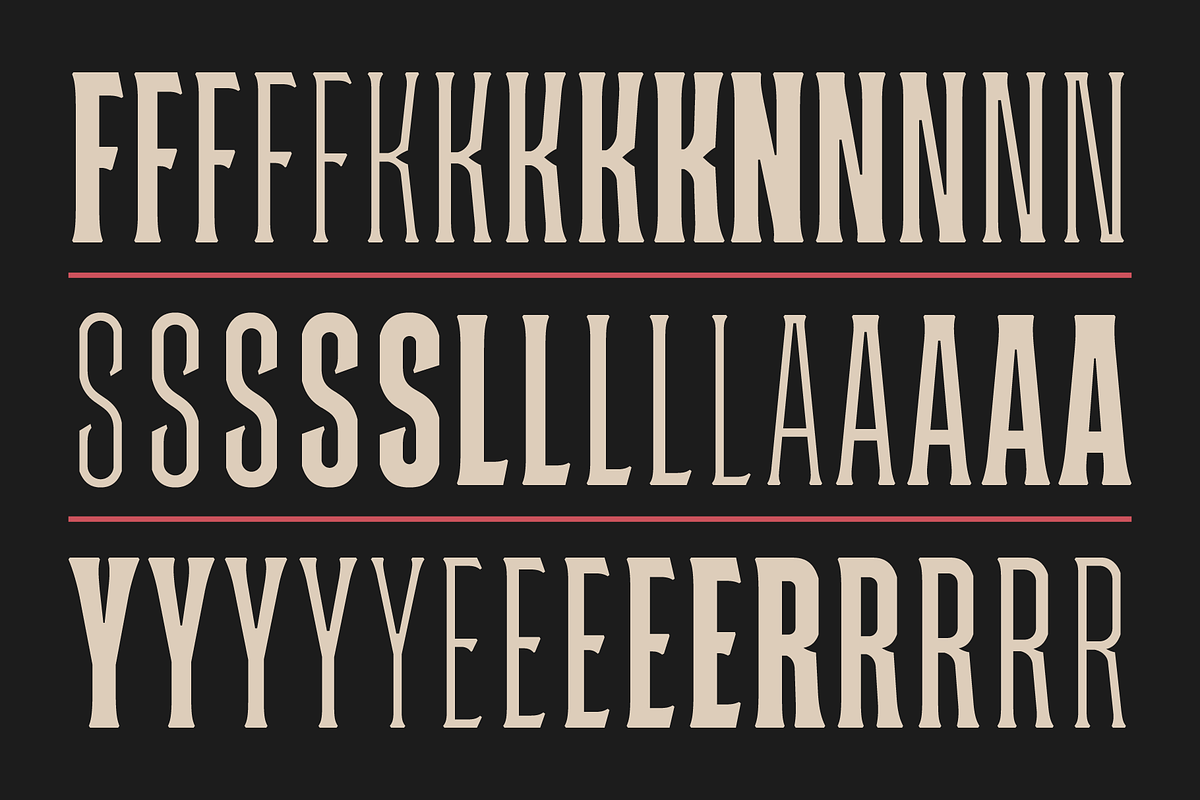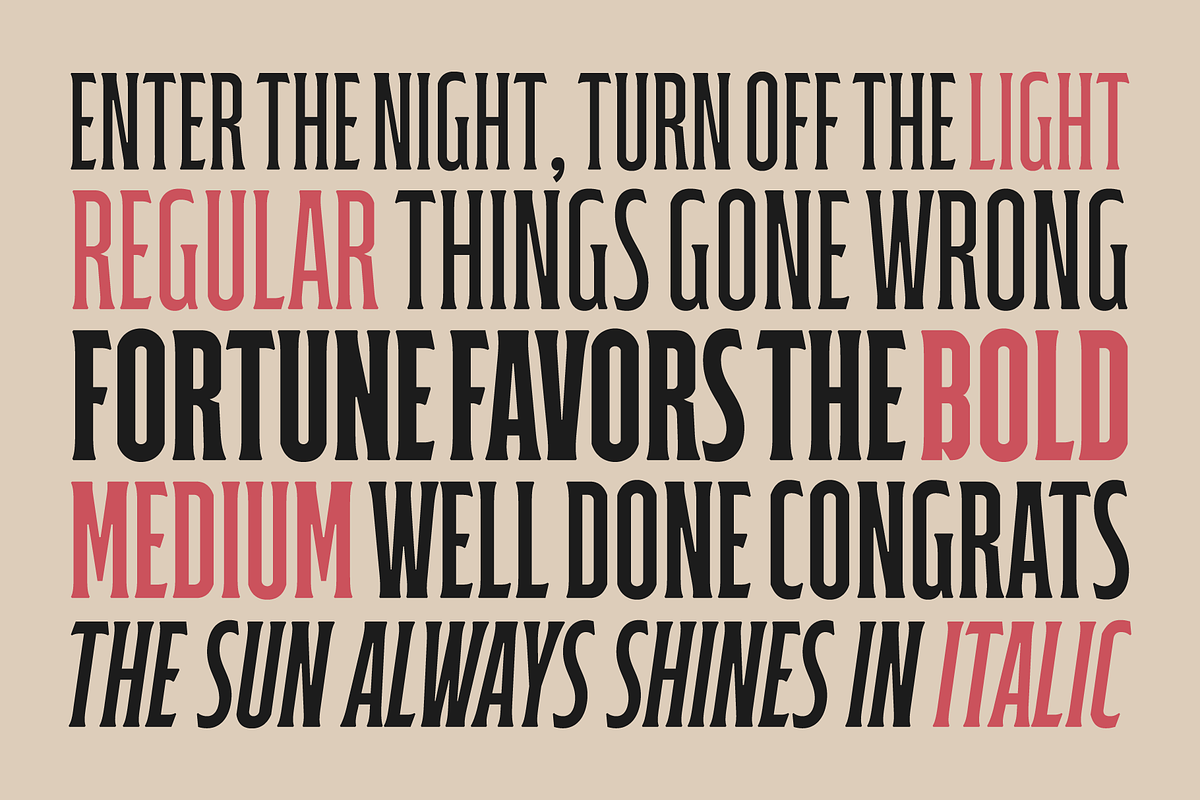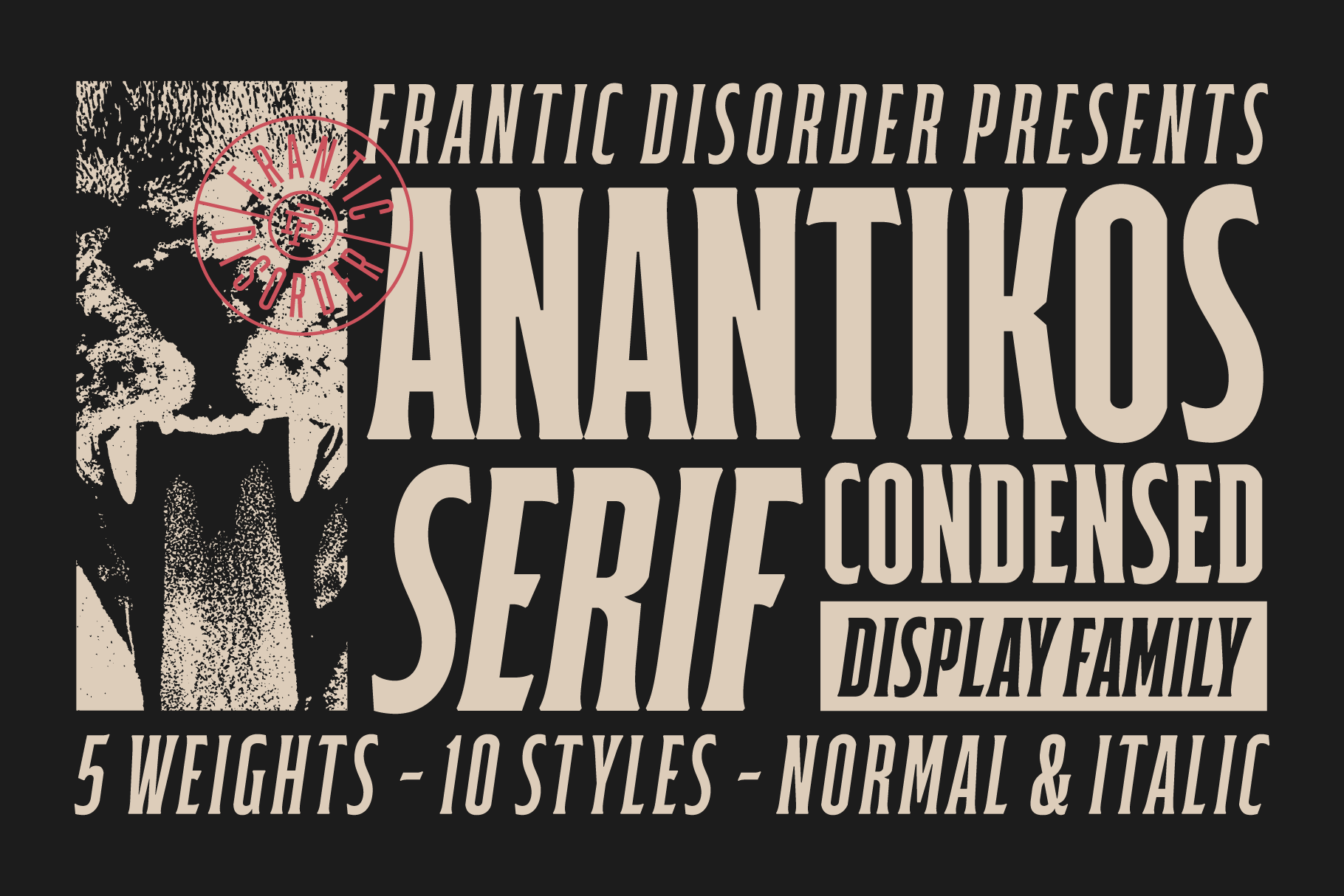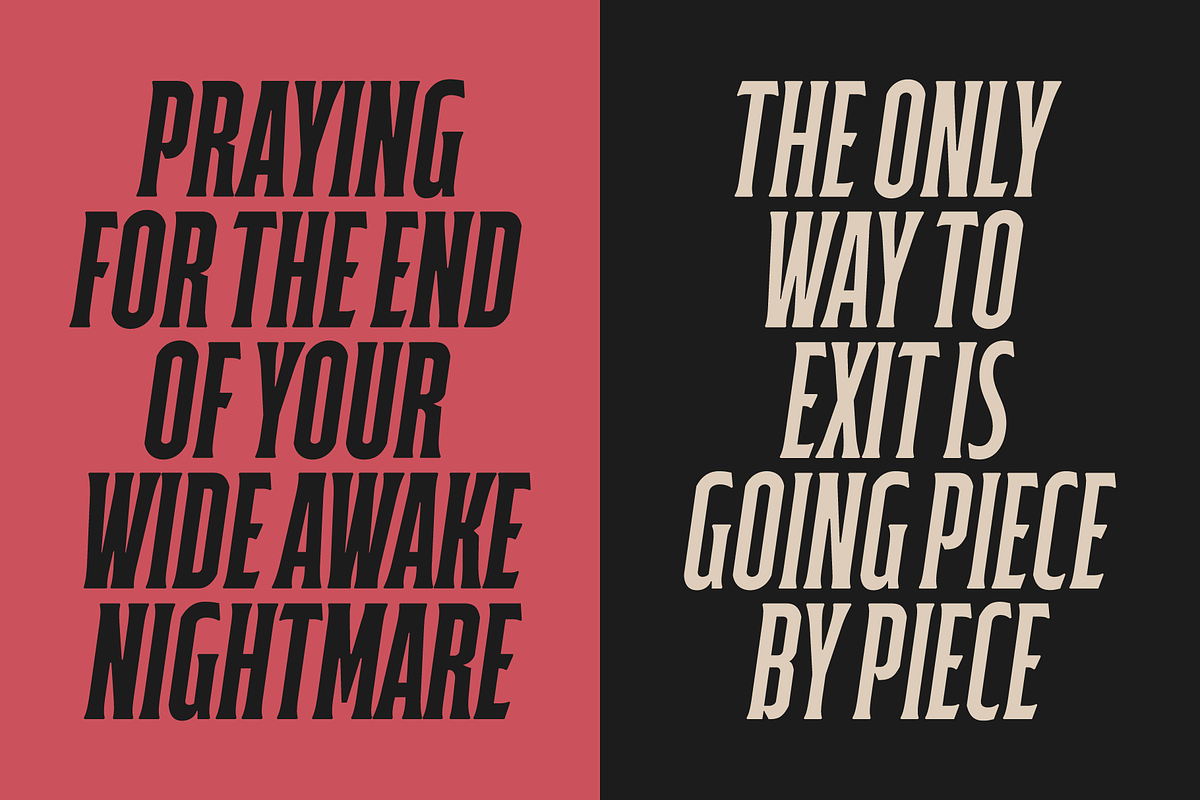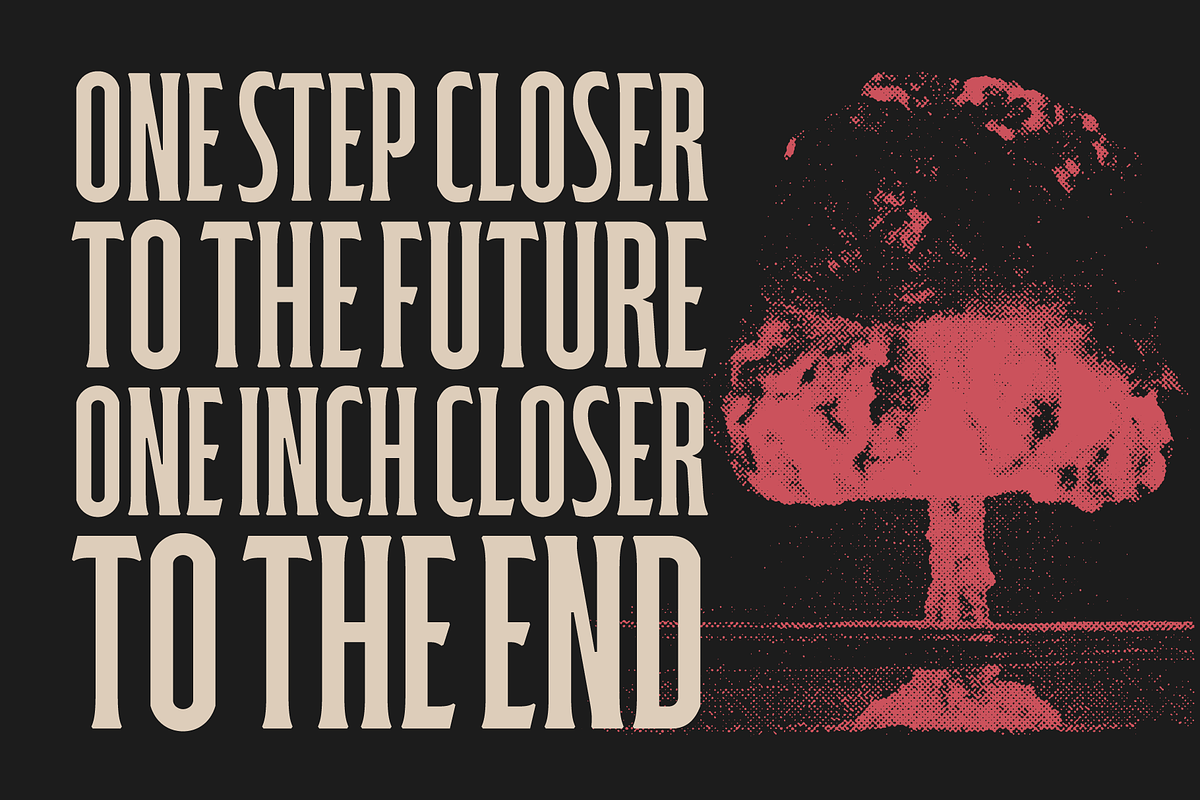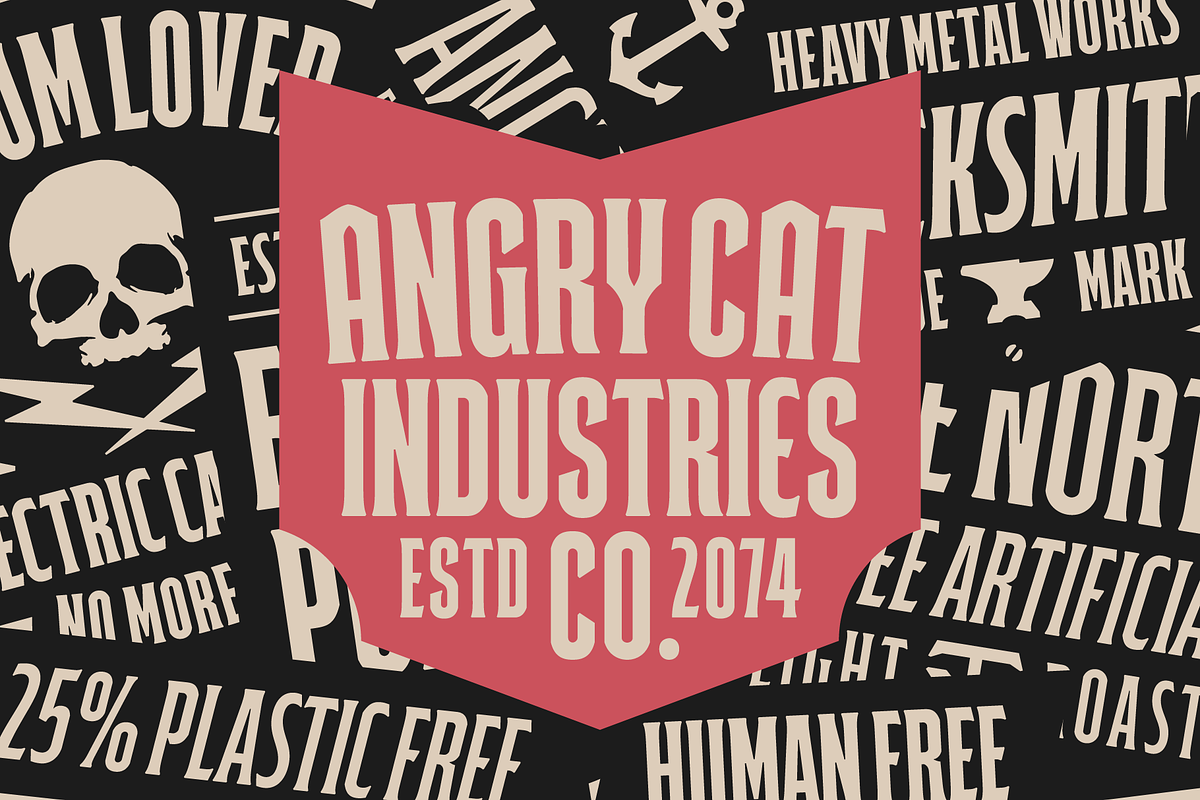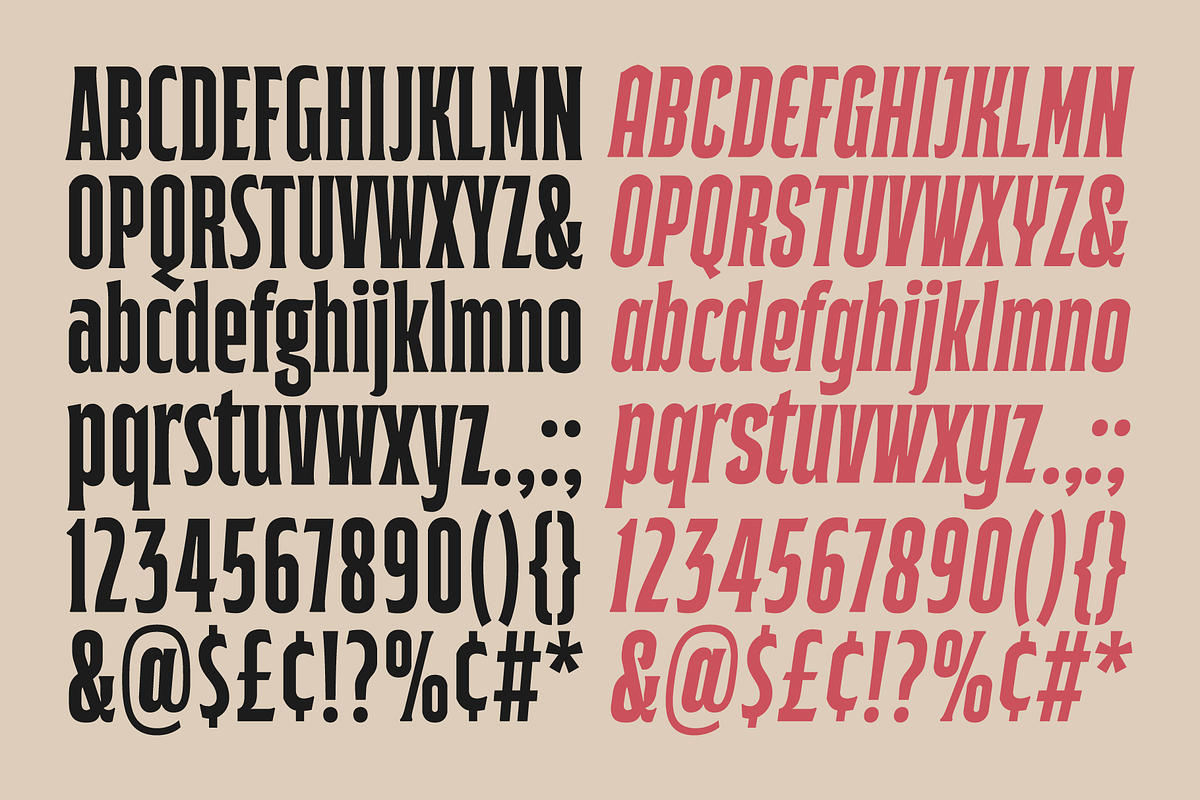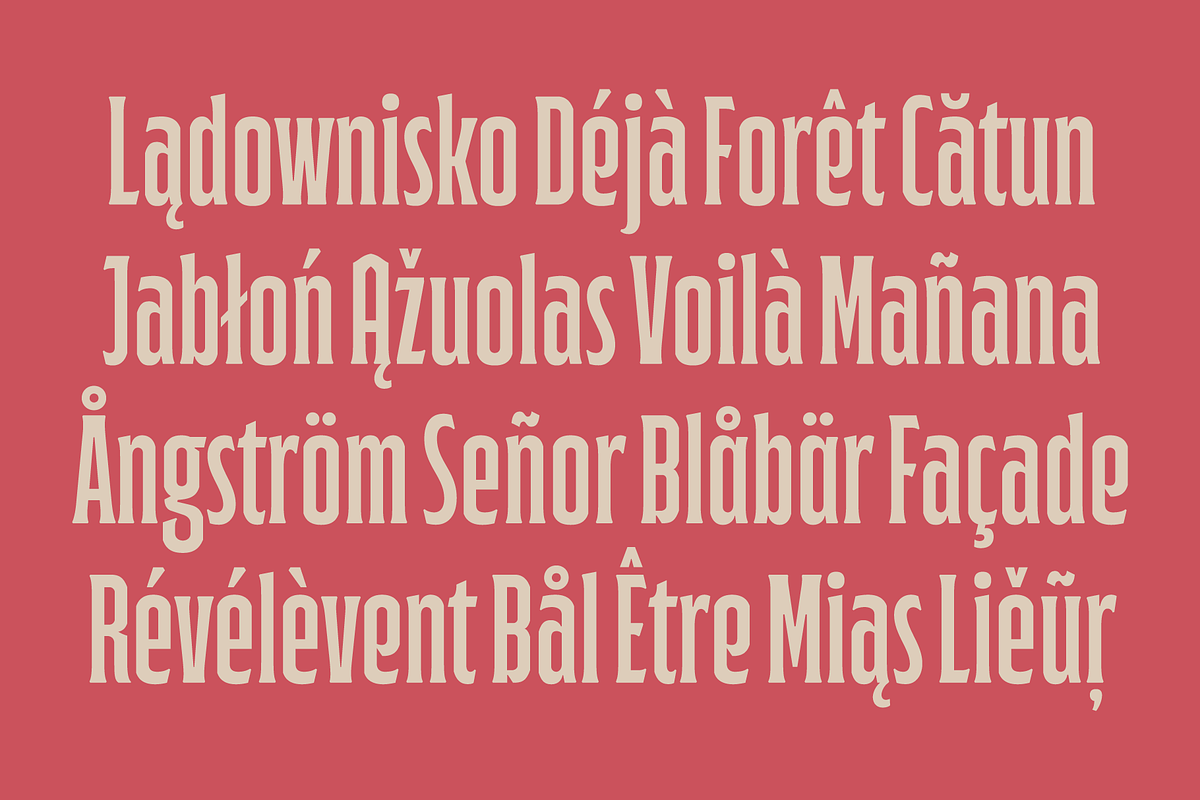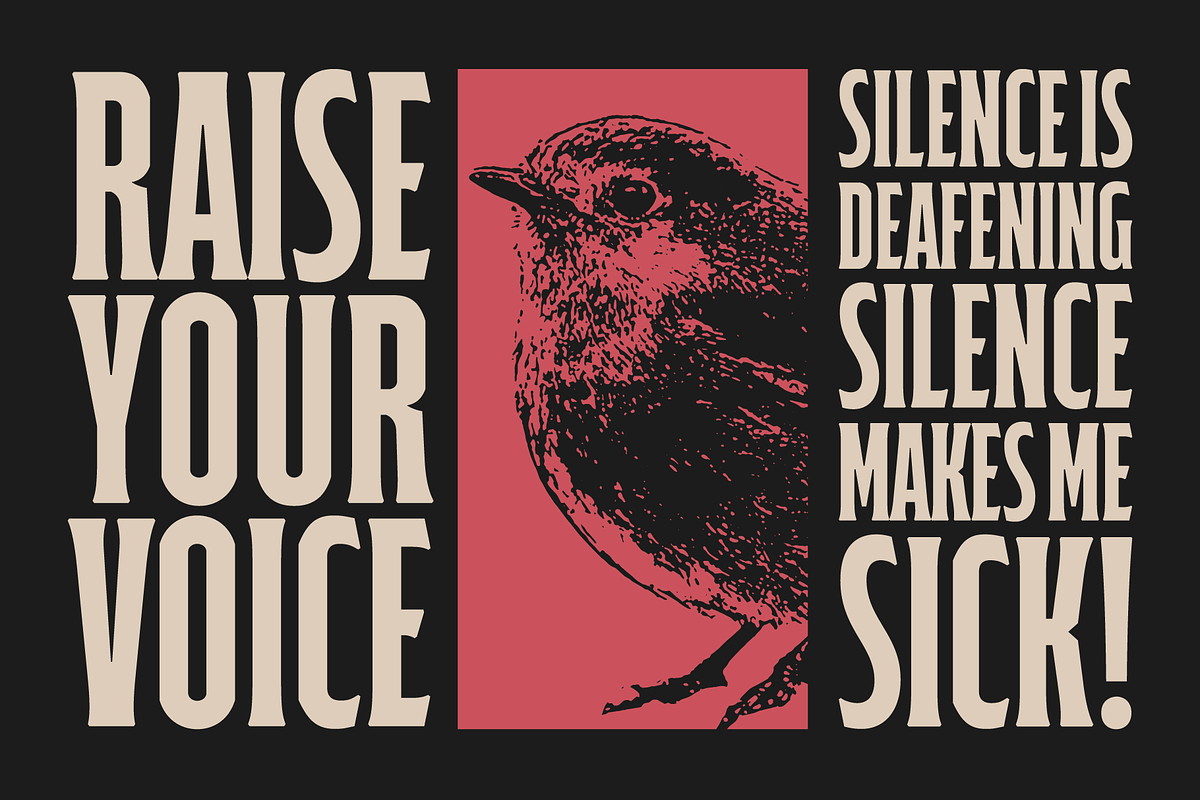
Anantikos Serif Typeface
Anantikos is a condensed typeface with old-style and transitional serif inspiration, representing a contrast with a classic feel. The font comes in 10 styles, including 5 different weights and italic versions, ranging from Light to Bold. It's perfectly suited for display purposes such as headings, branding, logos, posters, and more.